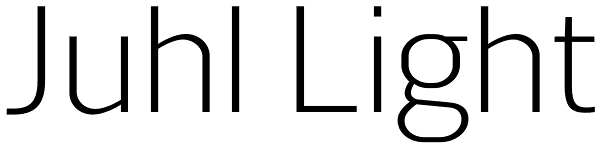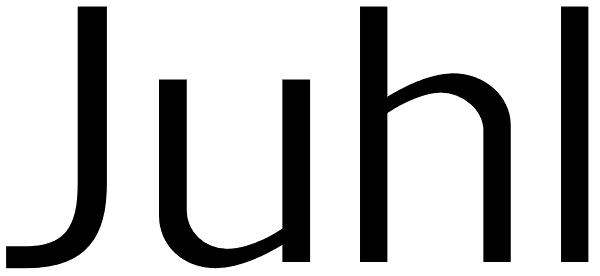
Juhl
A geometric sans serif typeface, the square horizontal structure is evenly balanced with smooth curves and arcs producing a clean, distinct font ideal for both print and on screen uses. Further enhancements to improve legibility with the use of...